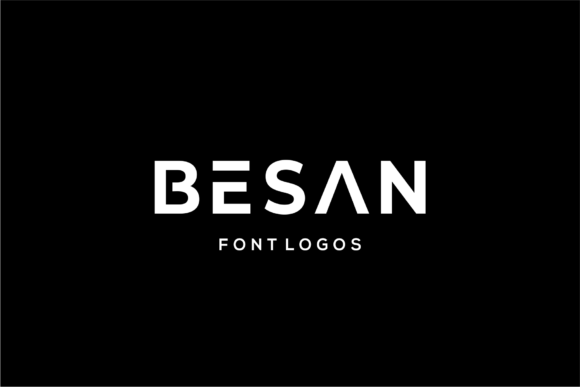
Feast your eyes on Besan - the Sans Serif font that exudes minimalism, modernity, and sophistication. Through the stroke of genius by Vroz Studio, Besan was meticulously crafted to cater to the design aspirations of contemporary logos, wordmarks, titles, and taglines.
With its clean lines, generous letter spacing, and captivating all-caps design, Besan invites you to explore a world of creative possibilities. Its strength lies in its simplicity, offering a timeless aesthetic that transcends fleeting trends.
Unleash your creativity and watch as Besan transforms your designs into works of art. Bask in the glory of Besan's versatility as it effortlessly adapts to a myriad of projects, from sleek logos that leave a lasting impression to captivating headlines that demand attention.
Besan is the perfect font for those who appreciate the beauty of minimalism. Its pared-down aesthetic ensures that your designs radiate clarity and focus, allowing your message to shine through without distractions.
Immerse yourself in the world of Besan and discover a font that harmoniously blends form and function. Let Besan be your creative companion as you craft designs that captivate, engage, and inspire.
Dive into the world of Besan today and elevate your designs to new heights of excellence. Let its modern charm and minimalistic allure become the cornerstone of your creative journey.
Besan awaits you - a font that embodies the essence of contemporary design. Its clean lines and captivating aura promise to transform your designs into masterpieces that resonate with your audience.